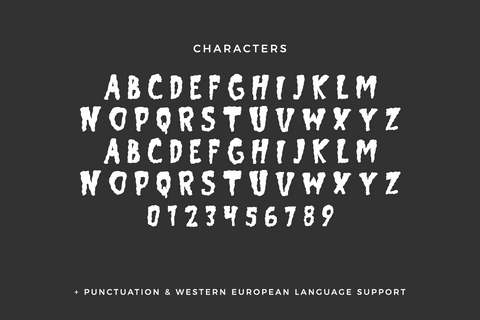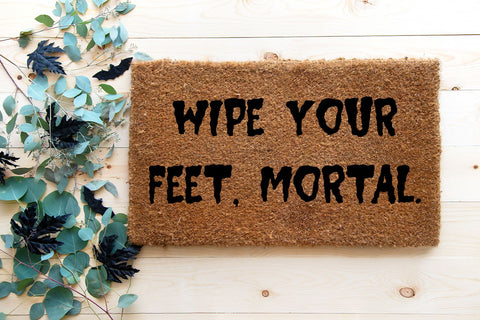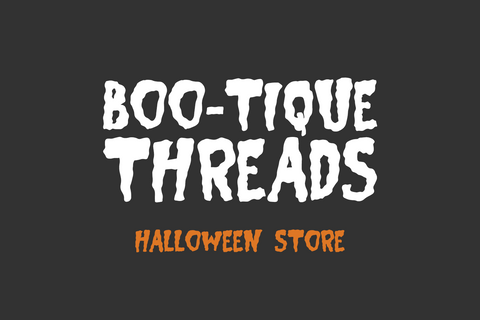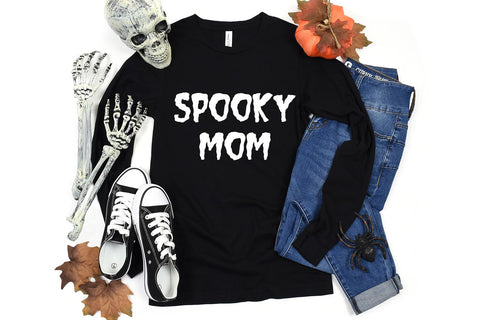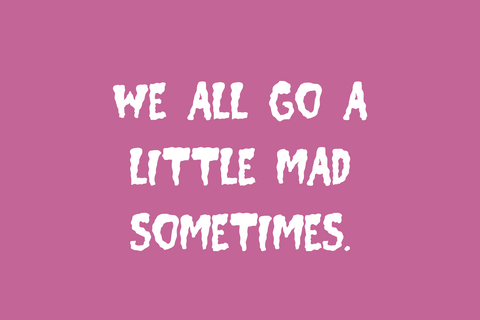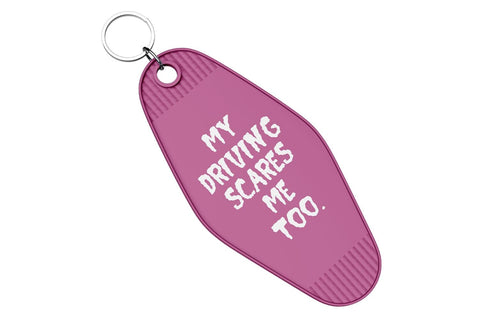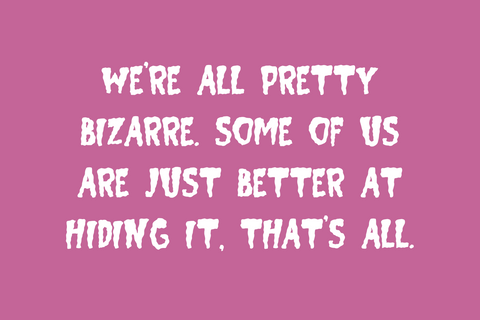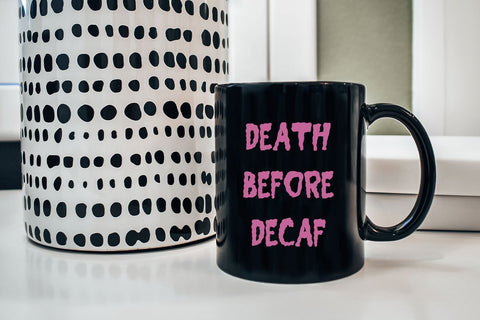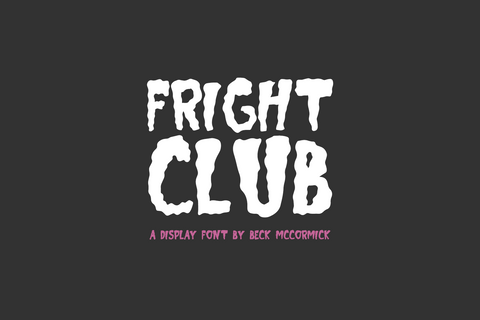
Fright Club - A Horror Font
Introducing Fright Club, a scary horror-movie themed font. Fright Club is a fantastic fit for your spooky designs. This font is well-suited for Halloween crafting projects with your Cricut or Silhouette machine, and can be used for things like shirts, signs, labels, marketing materials, social media, SVG designs, greeting cards & other print items, and even spooky logos & branding.
- full upper + lowercase characters (Fright Club is all-caps, so uppercase characters are programmed into lowercase spots for ease of use.)